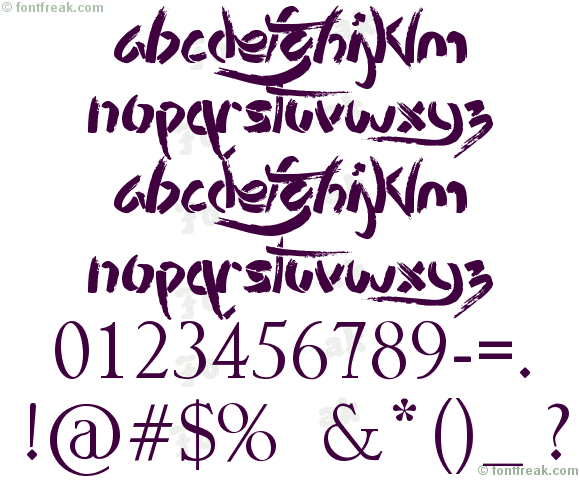
Stencil Brush
About Stencil Brush
The Stencil Brush font by Jonathan S. Harris is a captivating decorative typeface that brings an artistic flair to any project. Inspired by the raw aesthetic of brush lettering, this font features a unique stencil design that combines the ruggedness of a brush script with the precision of stenciled lettering. The strokes exhibit a varied weight, showcasing bold, expressive lines that taper off into softer edges, creating a dynamic visual contrast. The spacing between letters is thoughtfully designed to maintain readability while still imparting a sense of movement and creativity.
Ideal for a variety of applications, the Stencil Brush font shines in projects that require a personalized touch. It is particularly well-suited for tattoo designs, where its artistic style can convey deep meanings and sentiments. Additionally, it works beautifully on restaurant menus, providing an inviting and trendy look that appeals to diners. Movie posters can benefit from its striking presence, capturing attention and setting a thematic tone. Graphic designers will find it a valuable asset for branding projects, especially those that aim to portray a unique identity or a handcrafted feel. Content creators can also utilize this font to elevate their online presence, whether in social media graphics or digital publications.
Targeting graphic designers, small business owners, and content creators alike, the Stencil Brush font offers versatility and charm. Its free availability encourages experimentation and creativity, making it an appealing choice for those seeking to enhance their visual communication. The Stencil Brush font free download opens the door to a world of artistic possibilities, allowing users to express their ideas with style and flair. Its distinctive character and engaging design make it a standout option in the realm of decorative typefaces, ensuring that any project using this font will capture attention and leave a lasting impression.